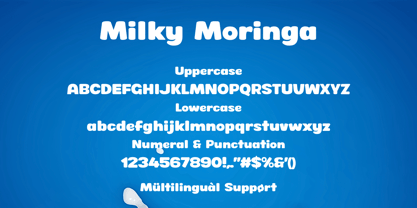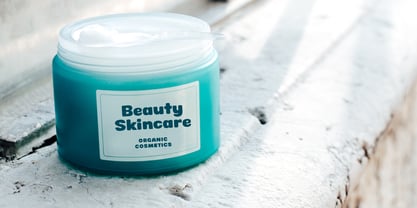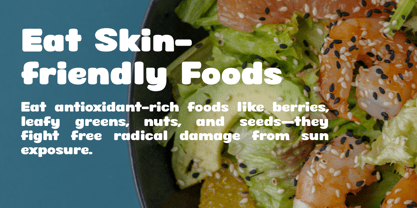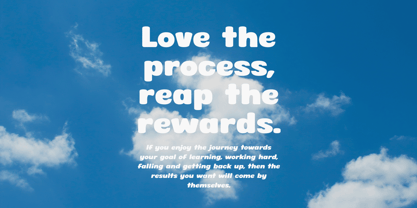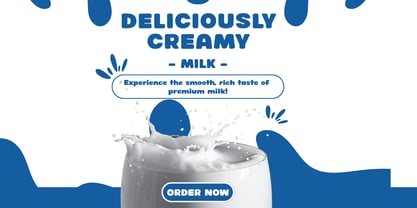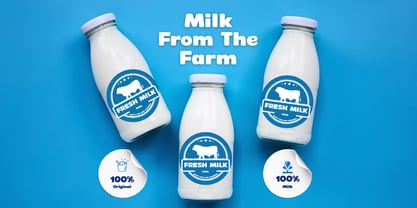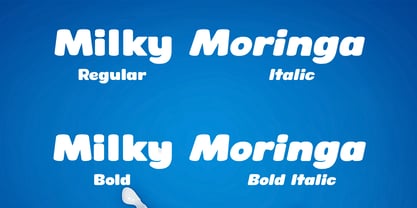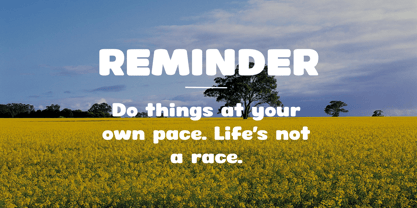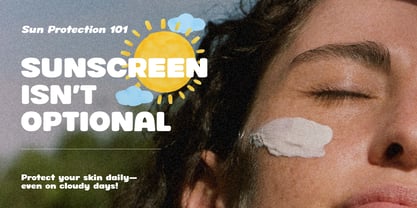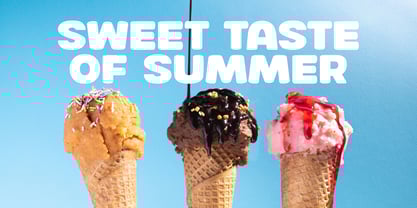
Milky Moringa
The Milky Moringa Font Family was designed by Muhammad Fikry and published by Fikryal. Milky Moringa contains 4 styles and family package options. More about this family
Introducing Milky Moringa – a bold and bouncy display font that brings joy to every letterform! With its rounded curves and friendly charm, Milky Moringa is the perfect choice for projects that need a touch of fun, softness, and sweetness.
This font family includes four styles to give you design flexibility:
• Milky Moringa Regular
• Milky Moringa Italic
• Milky Moringa Bold
• Milky Moringa Bold Italic
Whether you’re creating a logo for a cupcake shop, a colorful kids’ book, cheerful packaging, or playful Instagram quotes — Milky Moringa is here to make your design shine with personality.
Each letter is carefully crafted to maintain a soft yet strong presence, making it ideal for both digital and printed use. The italic versions add extra movement and character to your text.
🎯 Perfect for:
• Kids product branding
• Candy, food, and ice cream packaging
• Toys & baby merchandise
• Instagram posts & social media
• Logo design, greeting cards, and more!